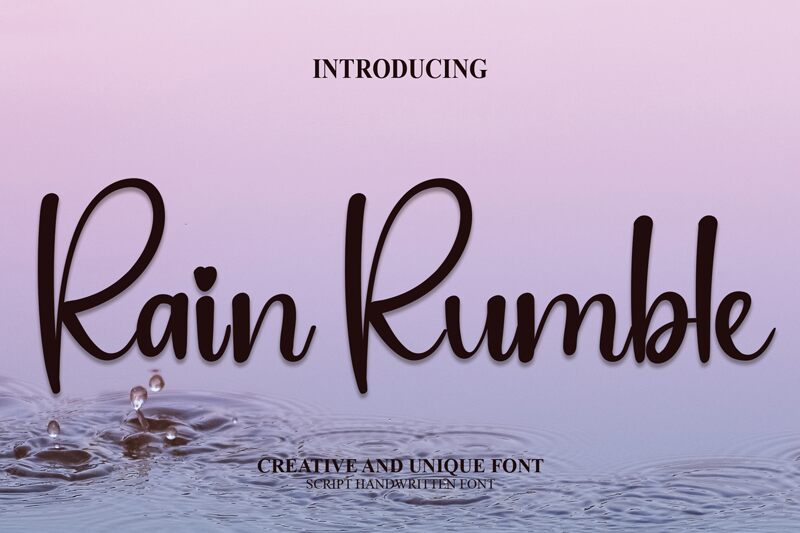
Rain Rumble
Rain Rumble is a captivating handwritten font designed by Andi Moz. Its dynamic, fluid strokes and organic, natural aesthetic make it a standout choice for a wide range of design applications.
The font's distinct personality shines through in its bold, expressive letterforms, which exude a sense of movement and energy. Rain Rumble's versatility lends itself well to branding, packaging, and editorial design, where it can add a touch of handcrafted charm and authenticity.
Its versatility also extends to digital media, where it can be used to create visually striking social media posts, headlines, and more.